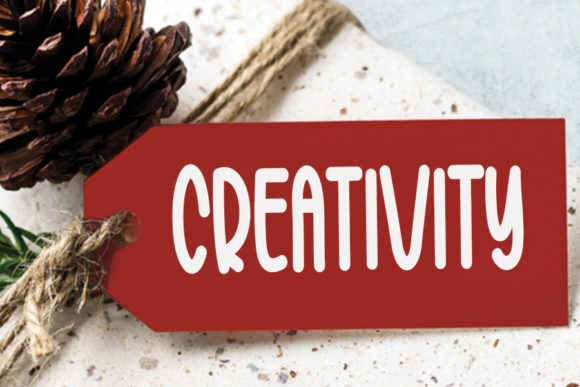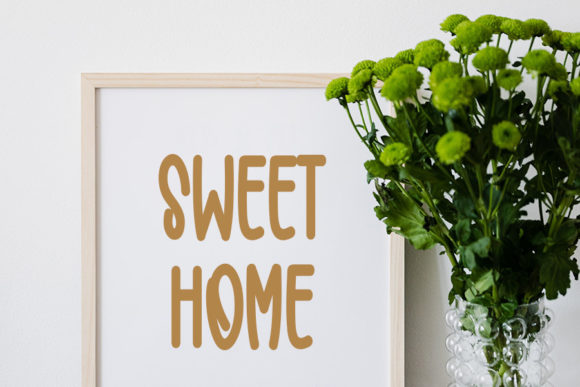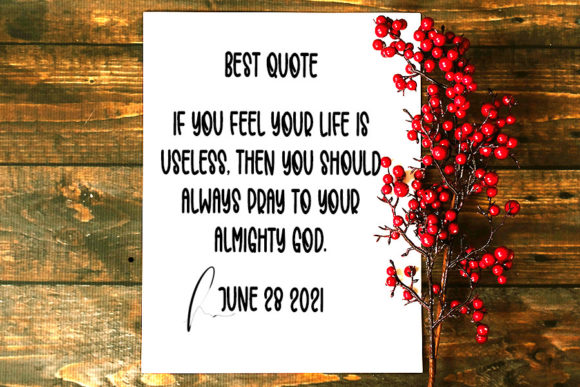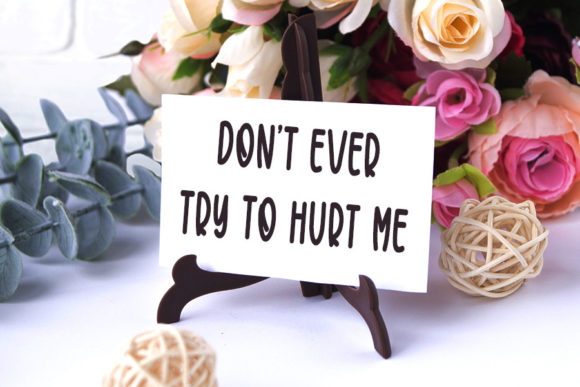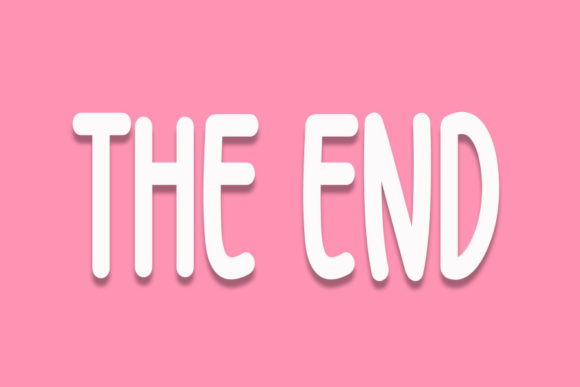
Introducing Barbar Font: The Ultimate Choice for Fun and Cheerful Designs
Are you tired of using the same old fonts for your designs? Look no further! Barbar Font is here to add a touch of fun and friendliness to your creations. This amazing handwritten font is perfect for cartoon-related designs, children’s games, and any project that requires a lovely and cheerful touch.
What Makes Barbar Font So Special?
Barbar Font is a unique and refreshing addition to the world of typography. Its playful and energetic vibe makes it an ideal choice for designers and crafters who want to add a personal touch to their work. The font’s handwritten style gives it a warm and approachable feel, making it perfect for designs that require a friendly and inviting tone.
Key Features of Barbar Font
- Handwritten Style: Barbar Font boasts a beautiful handwritten style that adds a personal touch to any design.
- Fun and Cheerful: The font’s playful and energetic vibe makes it perfect for designs that require a fun and cheerful tone.
- Versatile: Barbar Font can be used for a wide range of designs, from cartoon-related projects to children’s games and more.
- Easily Readable: The font is clear and easy to read, making it perfect for designs that require a high level of legibility.
Use Cases for Barbar Font
Barbar Font is an incredibly versatile font that can be used for a wide range of designs. Here are some use cases to get you started:
- Cartoon-Related Designs: Add a playful touch to your cartoon characters, titles, and descriptions with Barbar Font.
- Children’s Games: Create fun and engaging games for kids with Barbar Font’s cheerful and energetic vibe.
- Invitations and Party Decor: Use Barbar Font to create fun and playful invitations, party decorations, and more.
- Branding and Packaging: Add a personal touch to your brand’s packaging and marketing materials with Barbar Font.
Why Designers and Crafters Love Barbar Font
Designers and crafters love Barbar Font for its unique and refreshing style. Here are some reasons why:
- Unique Style: Barbar Font offers a unique and refreshing style that sets it apart from other fonts.
- Easily Customizable: The font is easily customizable, allowing designers and crafters to tailor it to their specific needs.
- Time-Saving: Barbar Font saves designers and crafters time and effort, as it can be used for a wide range of designs and projects.
In conclusion, Barbar Font is an amazing handwritten font that adds a touch of fun and friendliness to any design. Its unique and refreshing style makes it perfect for cartoon-related designs, children’s games, and any project that requires a lovely and cheerful touch. With its versatility, readability, and ease of use, Barbar Font is a must-have for designers and crafters.